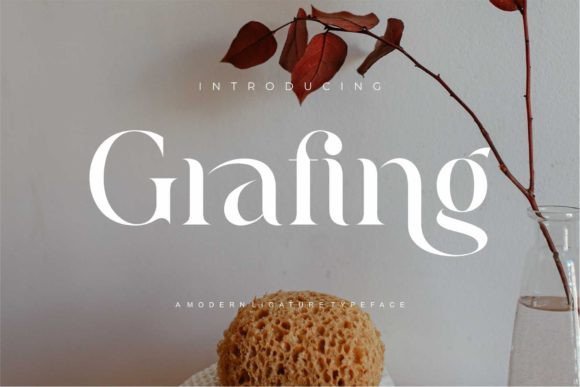
Introducing Grafing Font, the epitome of elegance and sophistication in the world of fonts. Created by dylla studio, this serif font is a work of art that will elevate your designs to new heights. Whether you're designing templates, brochures, videos, or advertising branding, Grafing Font is the perfect choice for you.
With its minimalist logo-inspired design, Grafing Font adds a touch of class and refinement to any project. Its timeless appeal makes it the ideal companion for creating stunning logos, invitations, and layout designs. Let your creativity flow as you craft elegant and captivating designs that leave a lasting impression.
Imagine the beauty and charm that Grafing Font brings to your wedding backdrop. Its graceful curves and delicate strokes create a sense of romance and enchantment, making it the perfect font for capturing the essence of your special day. Let your love story unfold in the most exquisite way possible with Grafing Font.
But Grafing Font isn't just limited to weddings. Its versatility knows no bounds. With its sleek and polished appearance, it is equally suitable for creating captivating branding materials, beauty designs, and more. Stand out from the crowd and make a statement with Grafing Font.
Don't settle for ordinary fonts when you can have the extraordinary. Download Grafing Font today and unlock a world of endless possibilities. Captivate your audience, evoke emotions, and leave a lasting impression with this exceptional serif font. Join the ranks of those who appreciate beauty and craftsmanship, and let Grafing Font be your creative partner.